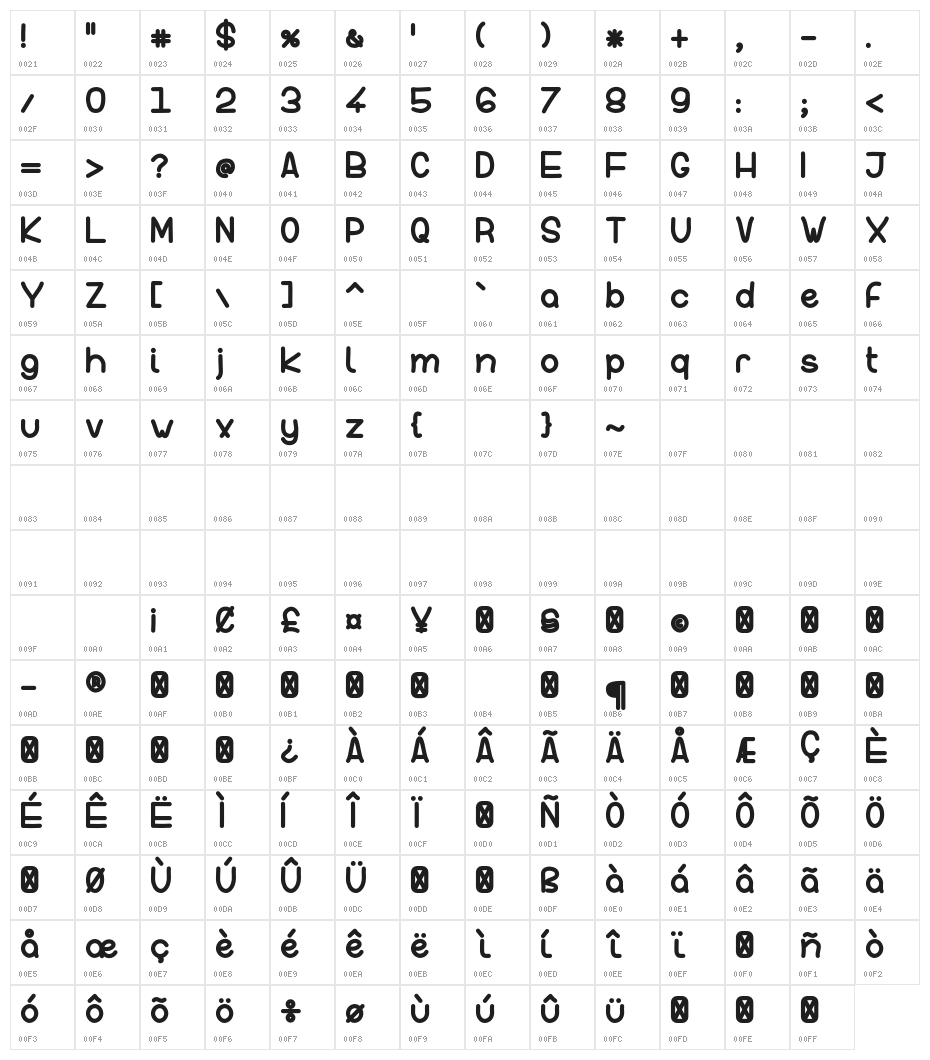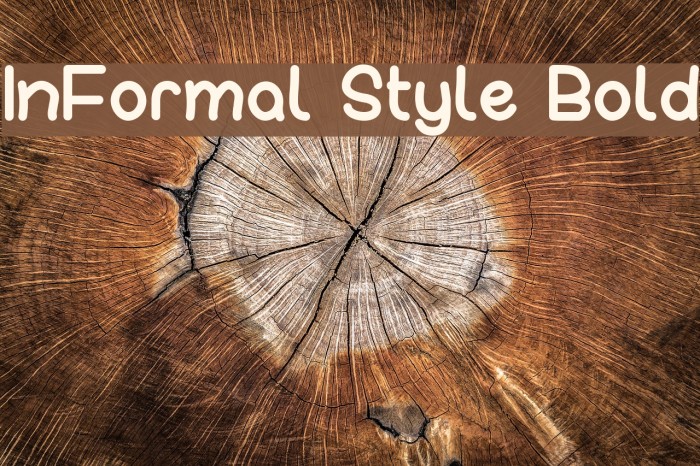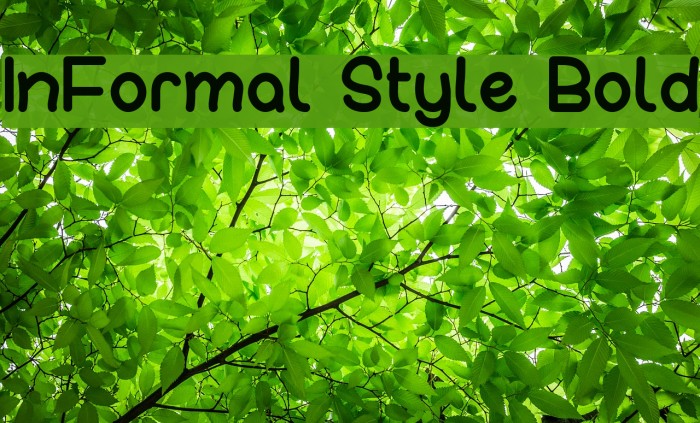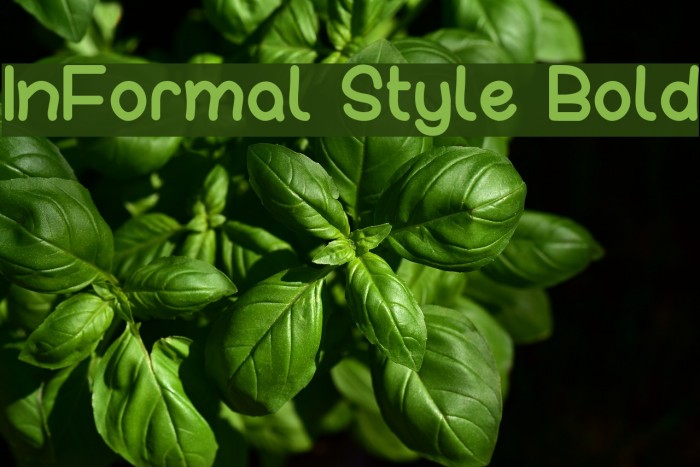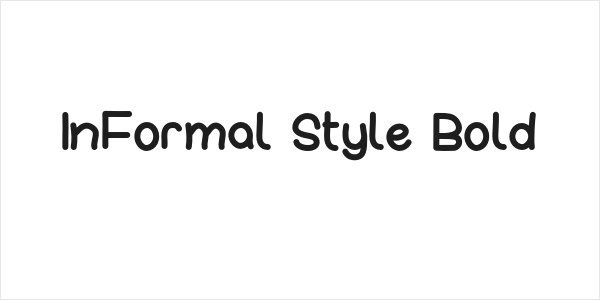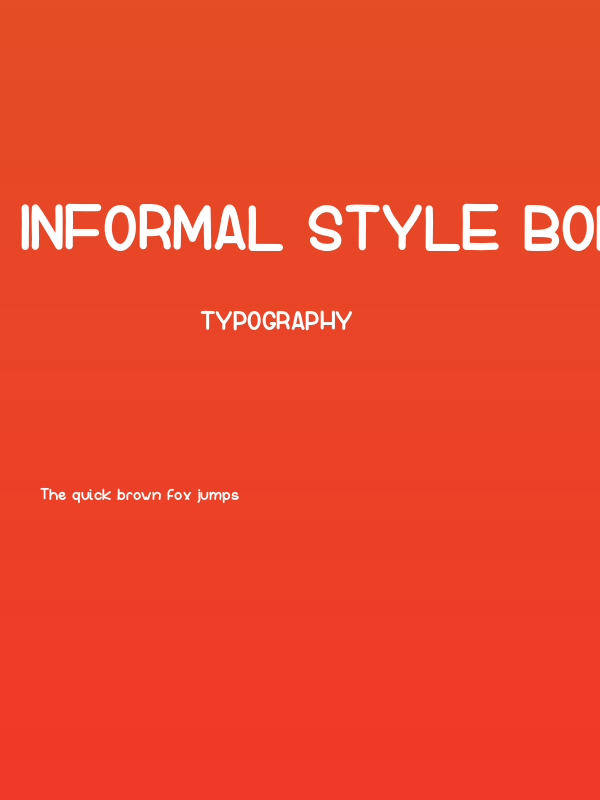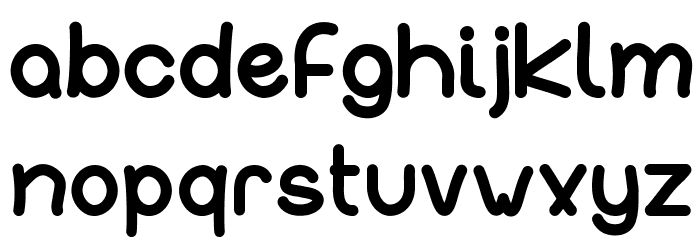
InFormal Style Bold Font
InFormal Style Bold Description
This playful and bold font features rounded edges and a casual, handwritten style. The characters are evenly weighted, giving a consistent and approachable appearance. The uppercase letters are slightly taller than the lowercase, maintaining a friendly and informal tone. The numerals and special characters follow the same rounded, bold style, ensuring uniformity across all text. This font is ideal for projects that require a fun and relaxed aesthetic, such as children's books, casual branding, or playful event invitations.
| Use Case | Headlines, Logos, Informal text |
| Proposed Projects | Ideal for children's books, casual branding, playful event invitations, and informal digital content. |